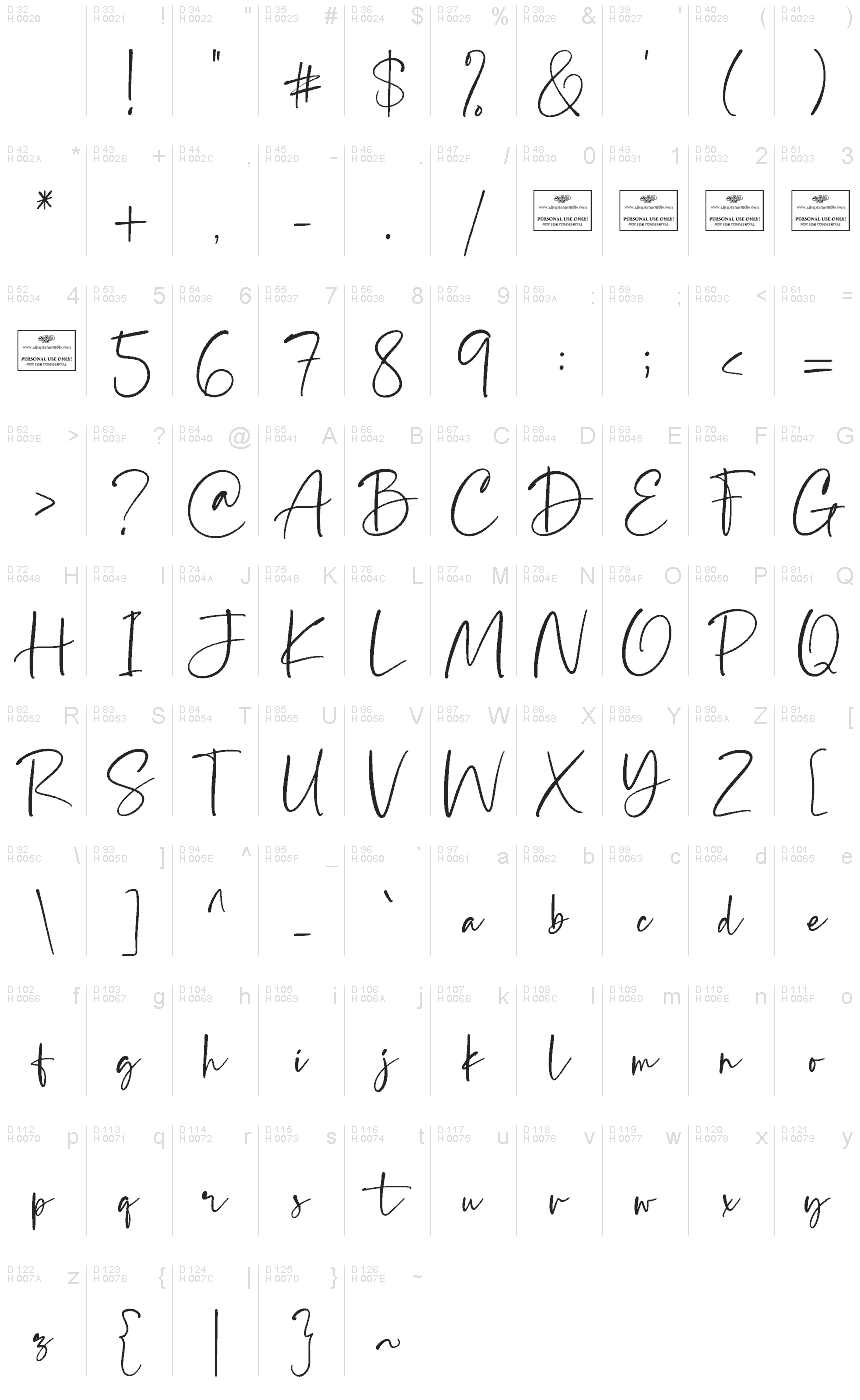
Singleton
Singleton font is a free handwritten typeface designed by Alpaprana Studio. Featuring thin, light lines and bold thick touches, the font makes no use of curvy tails or extravagant designs for its letters. It takes on a modest and simple attitude to bring out youthful elegance in whatever eventual design.